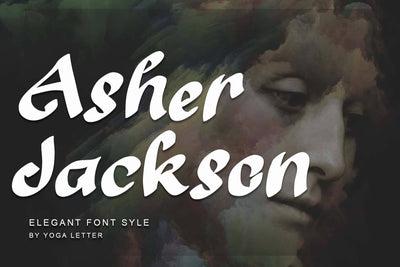
Asher Jackson
"Asher Jackson" is a fresh and cool handwritten font. This font is equipped with uppercase, lowercase, numerals, punctuations and multilingual support. Very suitable for logos, banners, posters, prints, vacations, branding, summer, spring, invitations, festivals, concerts and others.